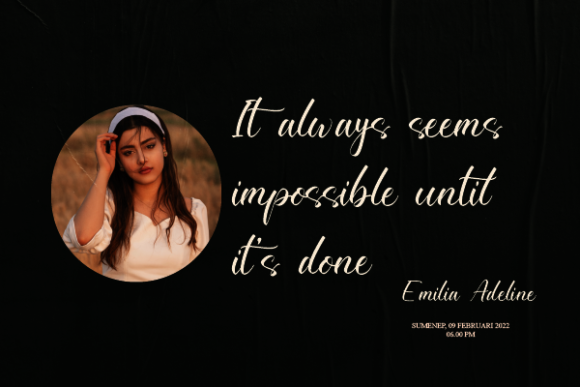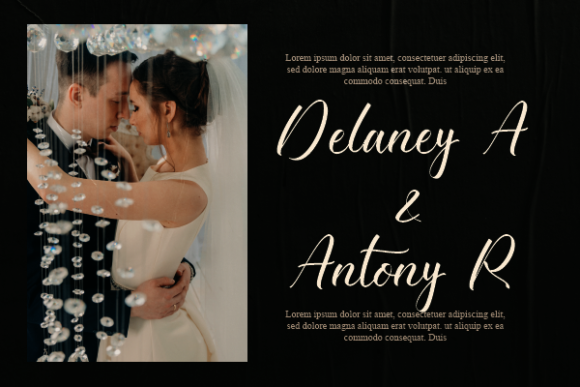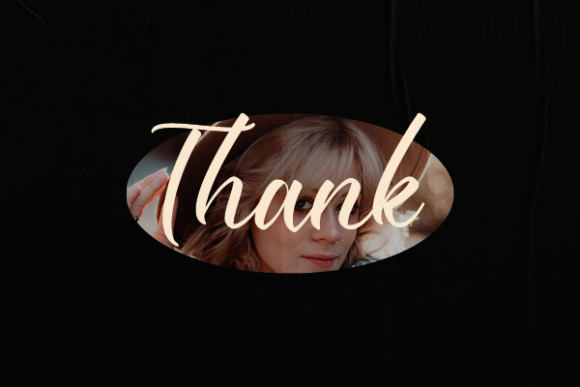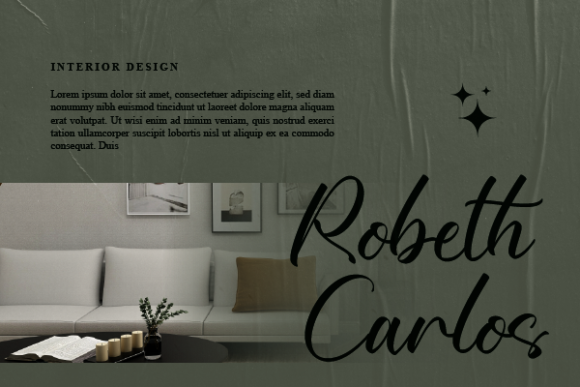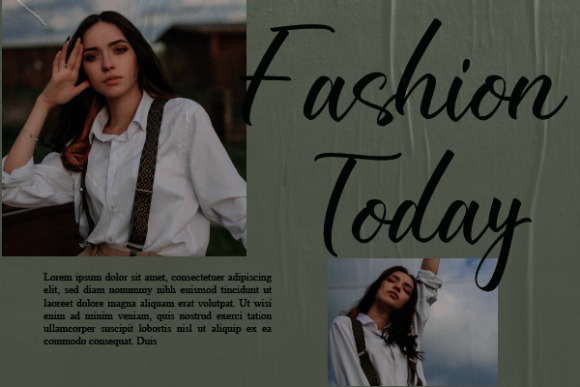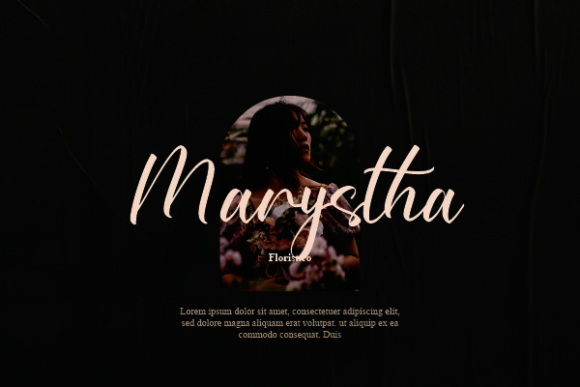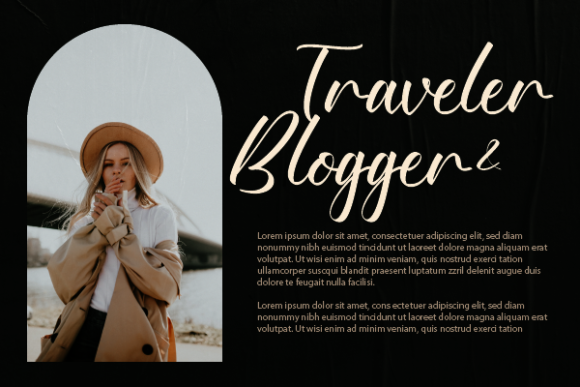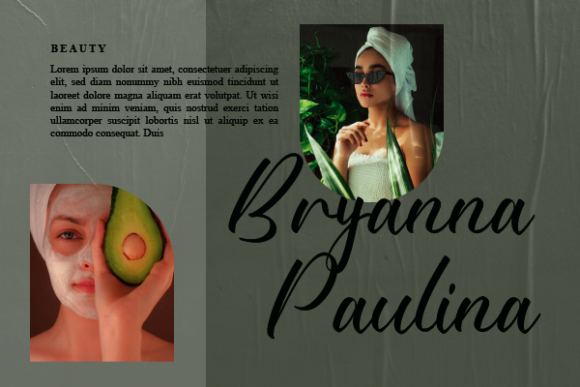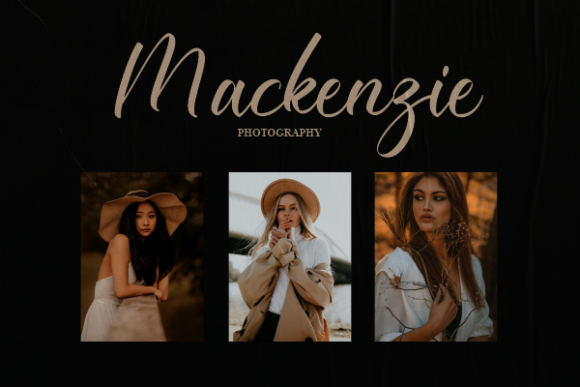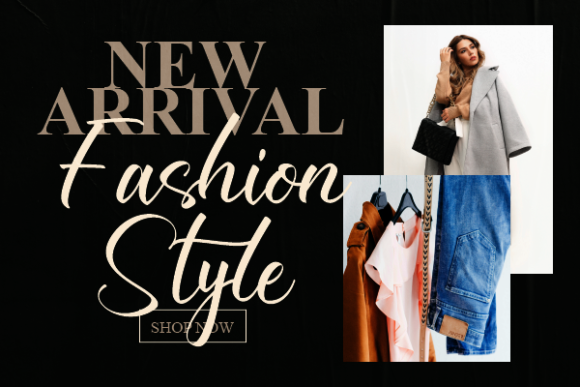
Martin Clarkson Font
About Martin Clarkson Font
“Martin Clarkson” emerges as a font that embodies the very essence of sweetness and delicacy, with each stroke exuding a sense of tender charm. Its dainty and joyful nature dances gracefully across the page, making it a perfect choice for an array of designs. Whether you’re composing wedding invitations, heartfelt cards, or any project seeking a romantic and personalized touch, “Martin Clarkson” imparts an enchanting and bespoke allure.
Envision your design projects as blank canvases yearning to be graced by the elegance of “Martin Clarkson.” Its delicate lines and tender curves intertwine to weave an intimate tapestry of emotions, transforming your creations into exquisite works of art. As you weave this font into your projects, you’ll witness the evolution of ordinary text into an eloquent expression of design that speaks to the heart.
However, “Martin Clarkson” transcends mere visual aesthetics; it carries an authenticity that resonates on a profound level. Its handwritten essence imparts a warmth that goes beyond pixels and ink, making your designs not just visually captivating but deeply personal. Every character becomes a brushstroke of sentiment, contributing to the narrative of your creative vision.
For occasions as monumental as weddings or as personal as heartfelt cards, “Martin Clarkson” emerges as your steadfast companion in storytelling. Its ability to evoke a romantic and personalized sentiment adds an invaluable layer of emotion to your designs. The font’s joyful spirit sets the stage for celebration and imparts an aura of pure delight.
In a digital era, “Martin Clarkson” revives the cherished art of handwritten expression. It encapsulates the joy of receiving a personalized note, conveying the warmth and thoughtfulness of the sender. Let “Martin Clarkson” act as the bridge that connects your message with the hearts of your audience, forging memories that endure.
As you embark on your creative journey with “Martin Clarkson,” you’ll discover that its sweet delicacy breathes life into your projects. Let its tender curves be the brushstrokes that add an air of enchantment to your designs, elevating them to new heights of elegance. Embrace the enchanting aura of “Martin Clarkson” and witness how it transforms your creations into treasured moments, capturing the very essence of love, romance, and heartfelt emotion.